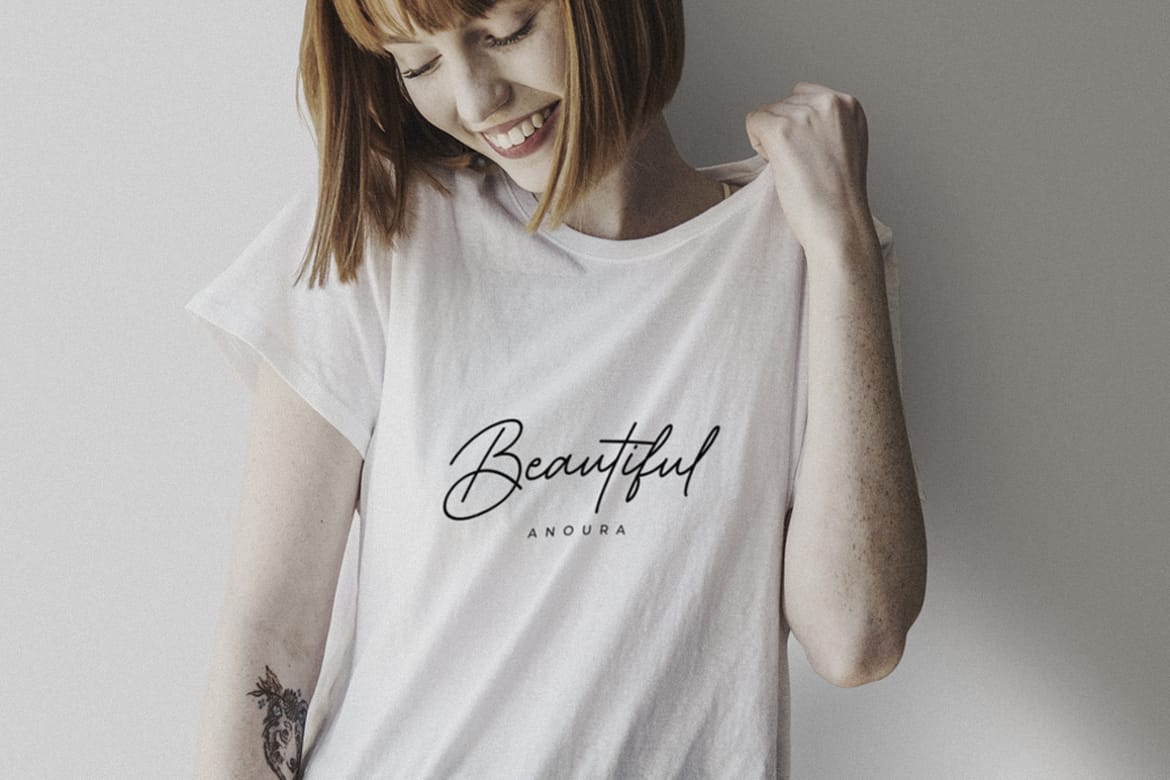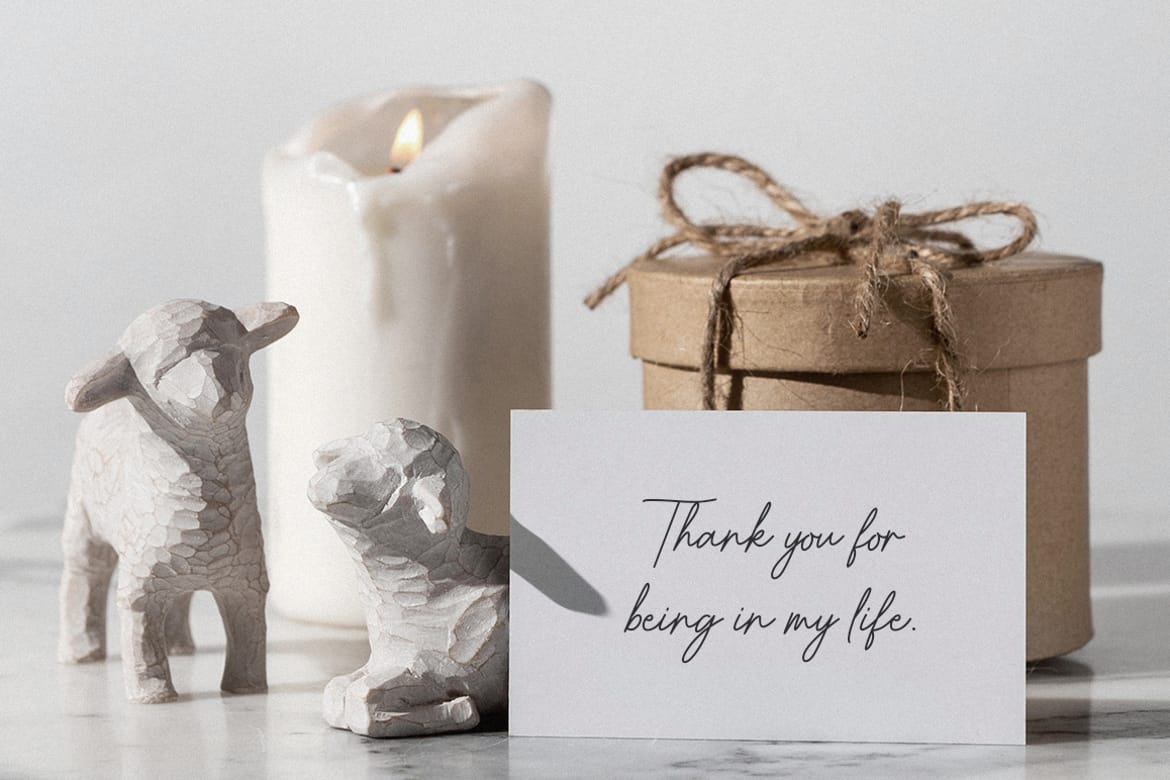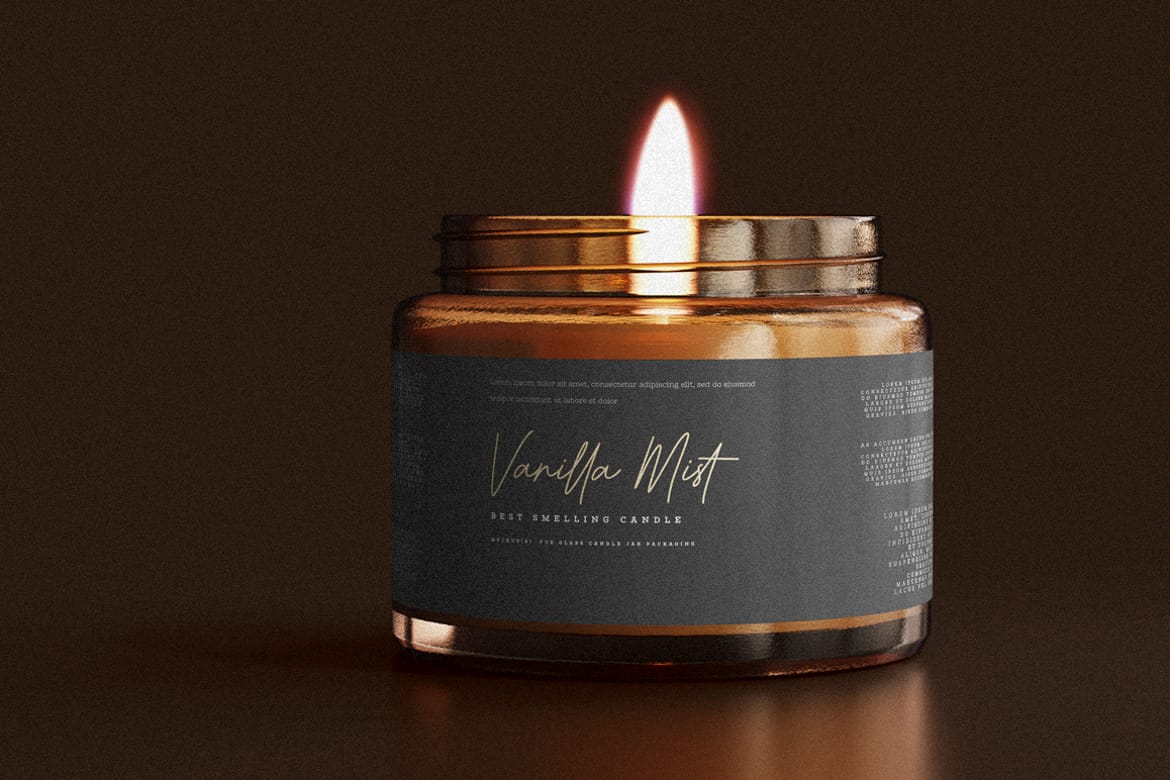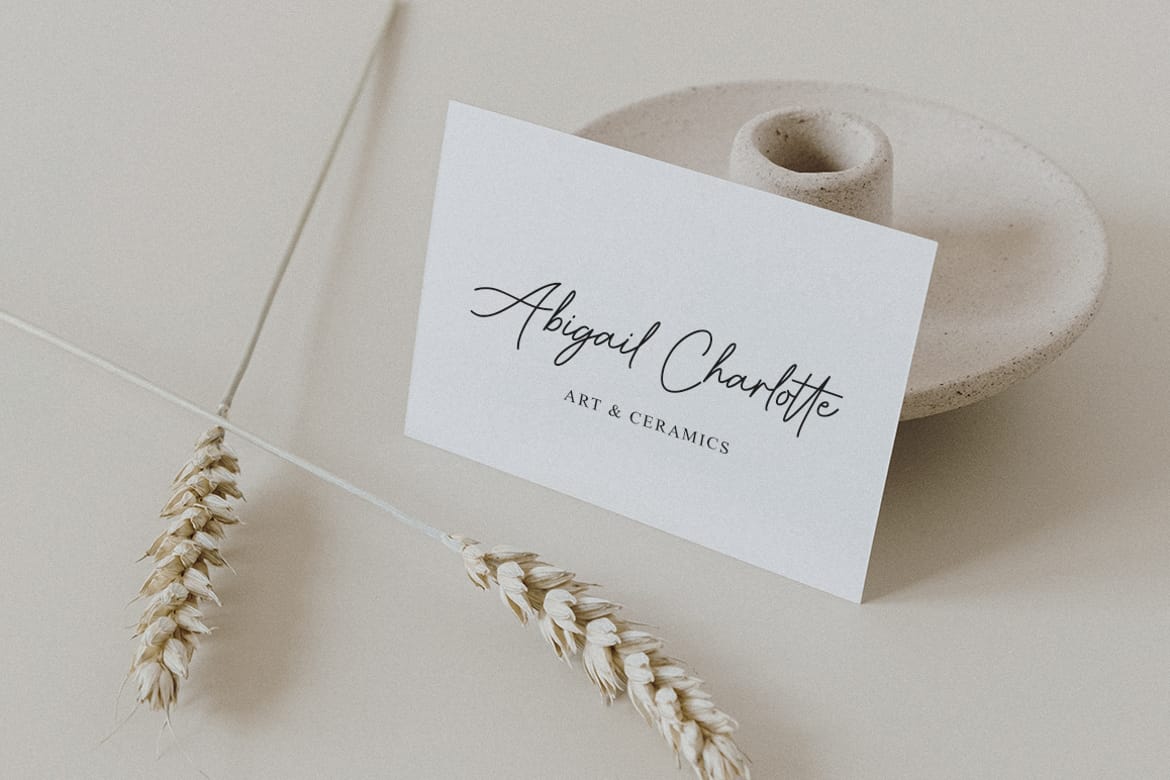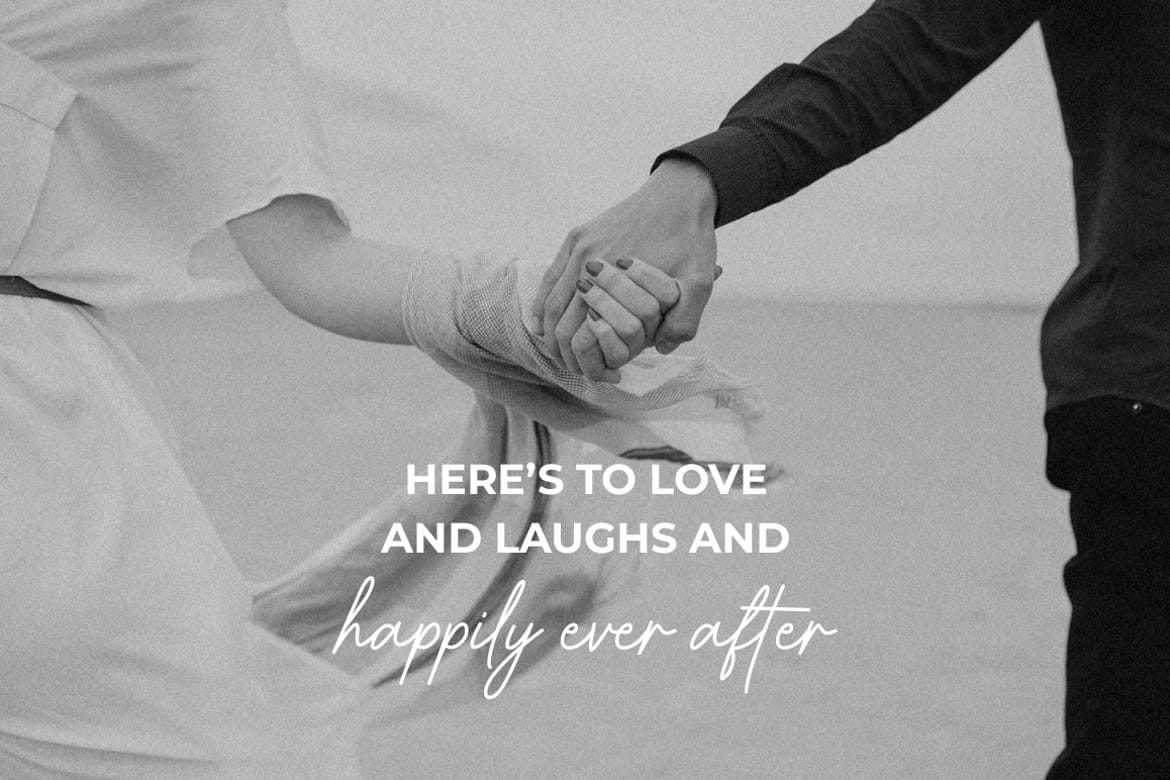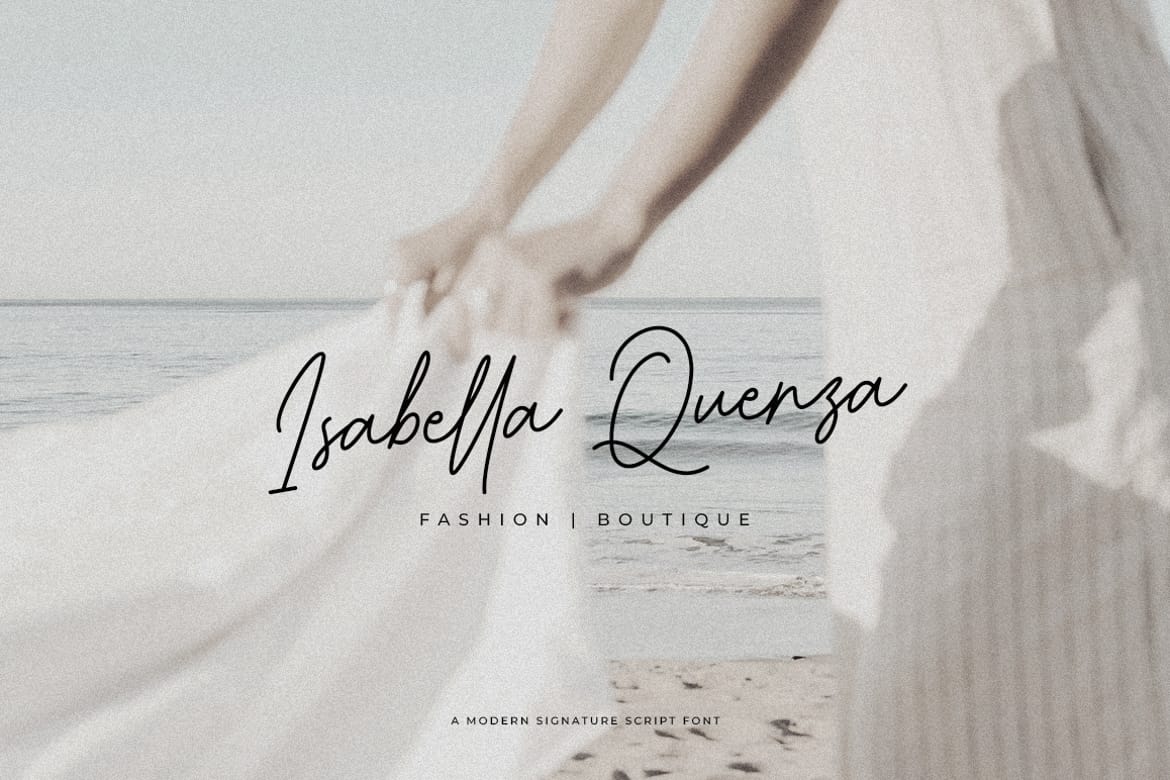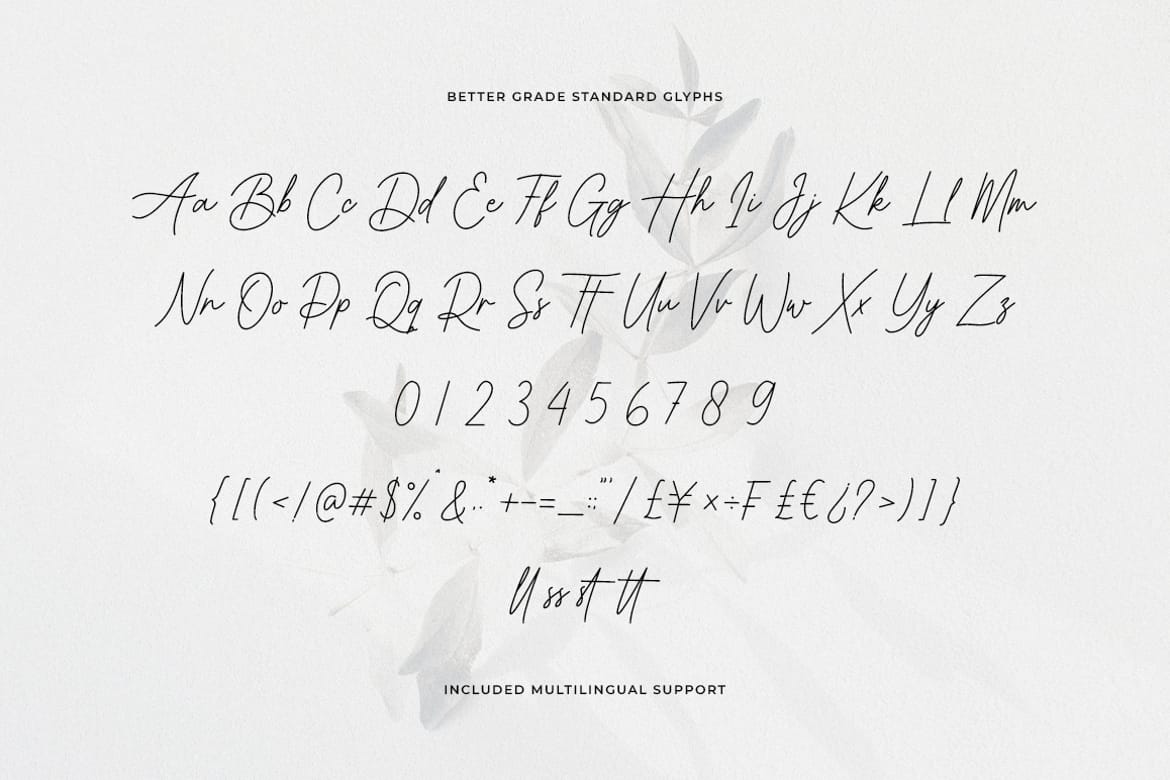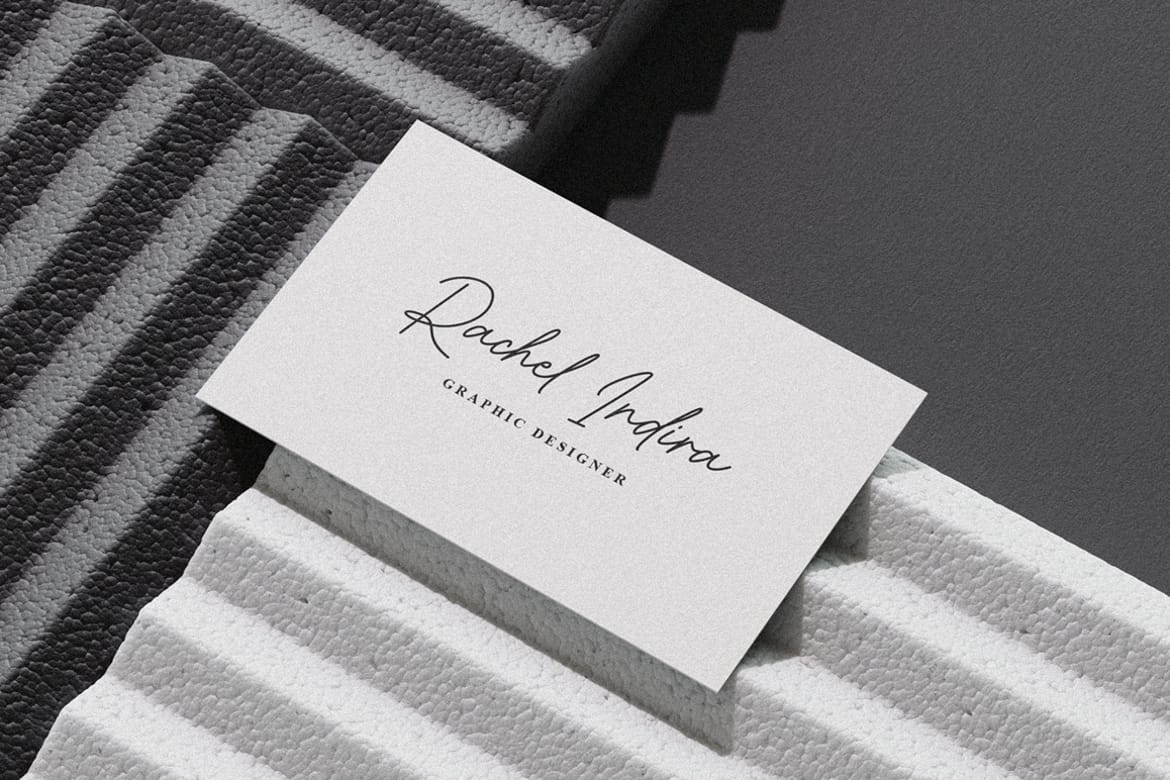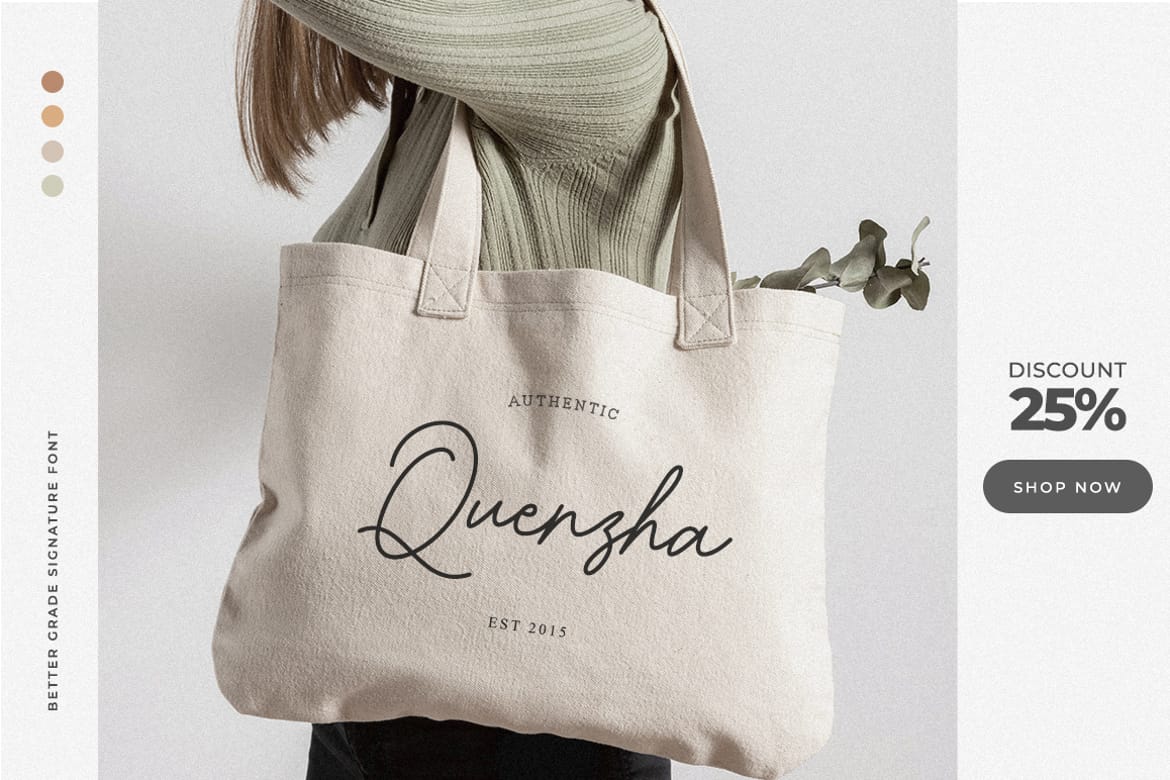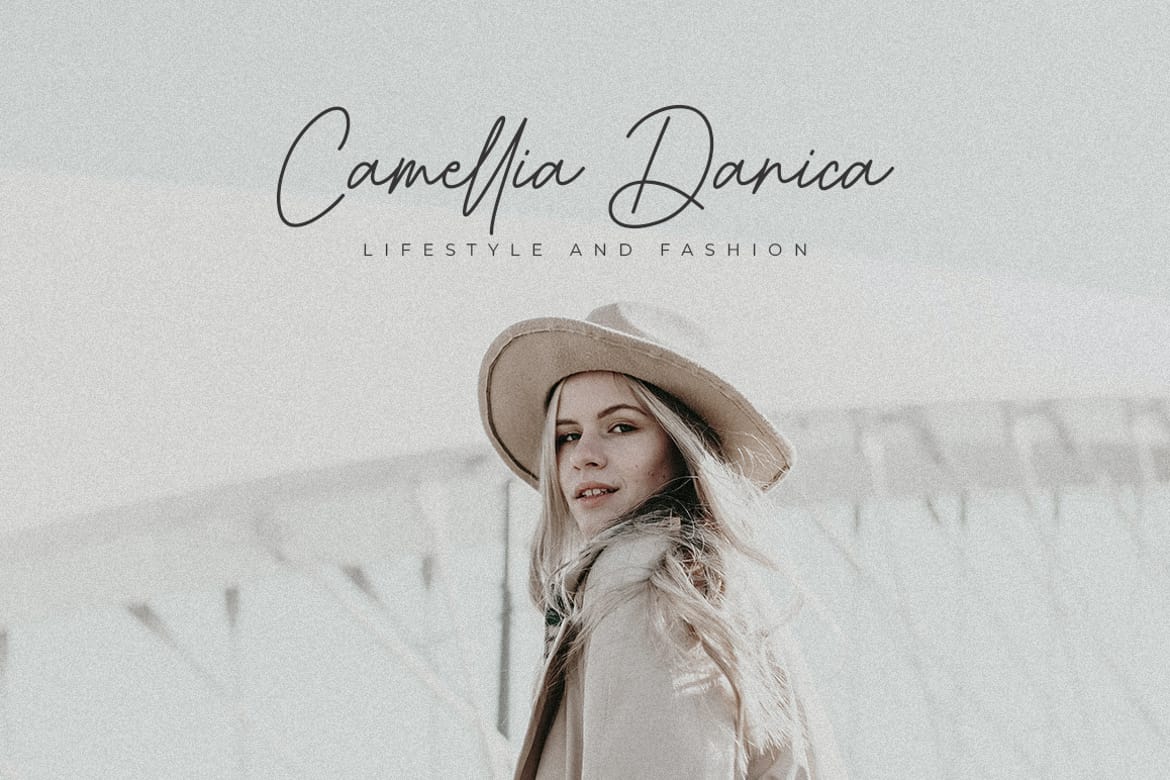
Better Grade – Modern Signature Script Font
Better Grade is a modern signature script font crafted to bring elegance, authenticity, and sophistication to your creative projects. Featuring smooth handwritten strokes, stylish ligatures, and natural letter connections, this font captures the beauty of a genuine signature while maintaining excellent readability.
Designed for branding, logos, wedding invitations, social media content, product packaging, fashion editorials, photography watermarks, and luxury marketing materials, Better Grade adds a refined and personal touch to every design. Its flowing script style creates a premium handwritten look that feels both contemporary and timeless.
- Ligatures and Alternates
- Multilingual Support